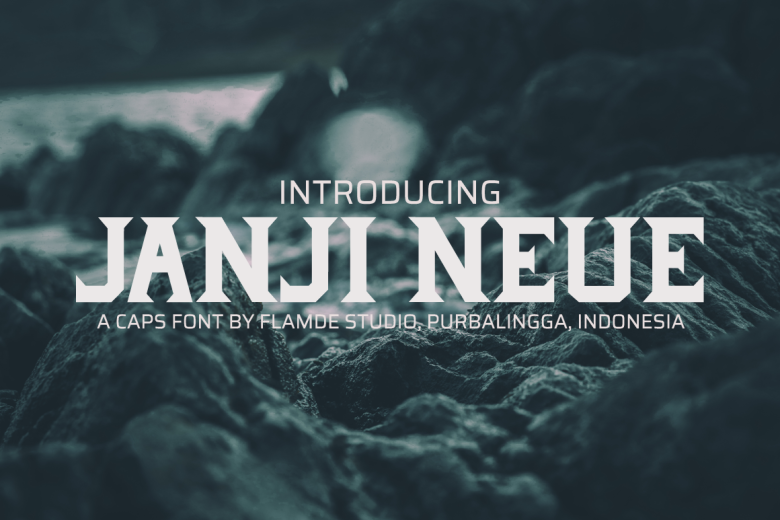
Janji Neue Typeface
A caps font by Flamde studio, Purbalingga, Indonesia. Introducing Janji Neue. it’s perfect for you to use on your poster design, logo, and many more.